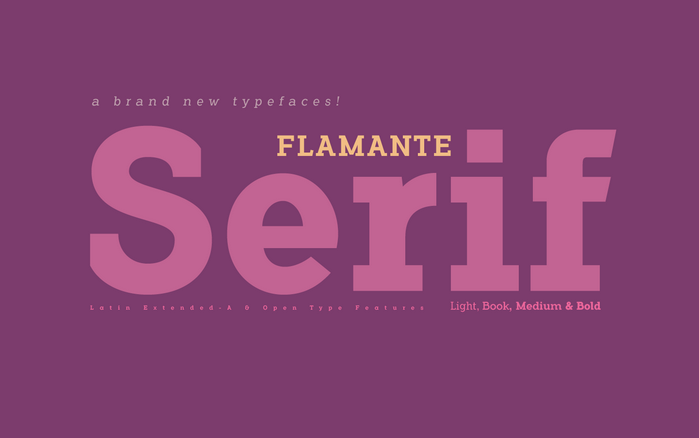
Flamante Serif Fonts
Flamante Serif is a family of 8 typographies with thick square serifs of the slab type, also known by the Egyptians, which are released with four weights: Light, Book, Medium and Bold and their corresponding italic versions. Inlude the Bitcoin symbol (b#)